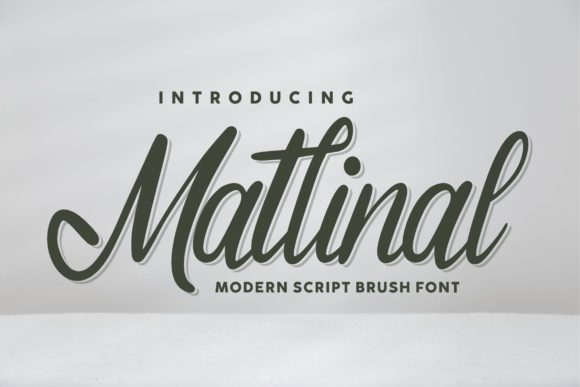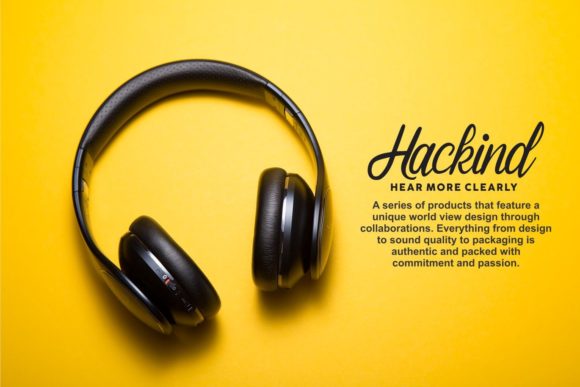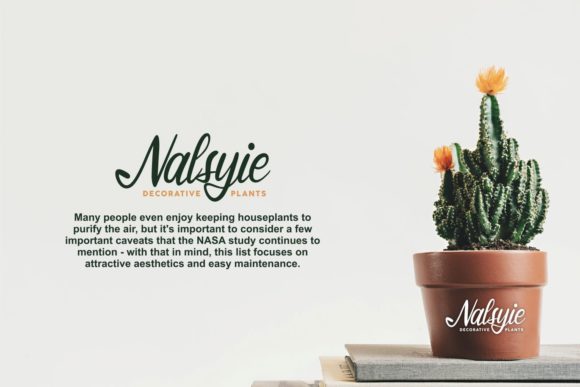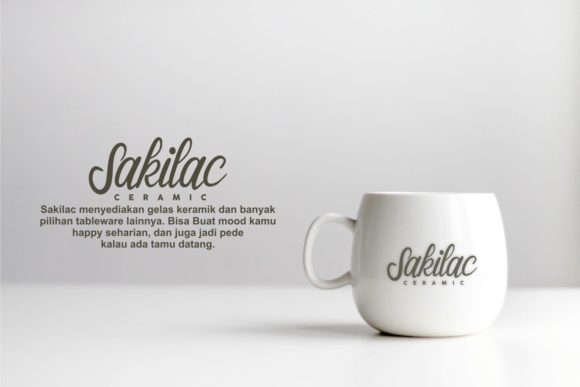
About Matlinal Script Font
Matlinal Script is a romantic and sweet calligraphy typeface with characters that dance along the baseline. It will add a luxury spark to any design project that you wish to create!